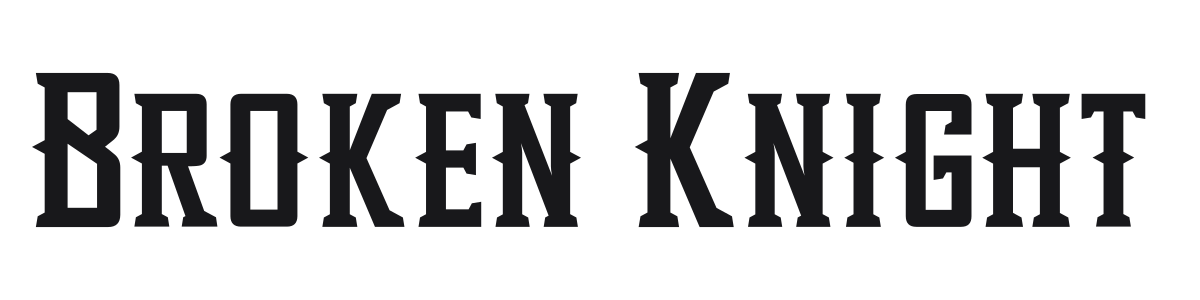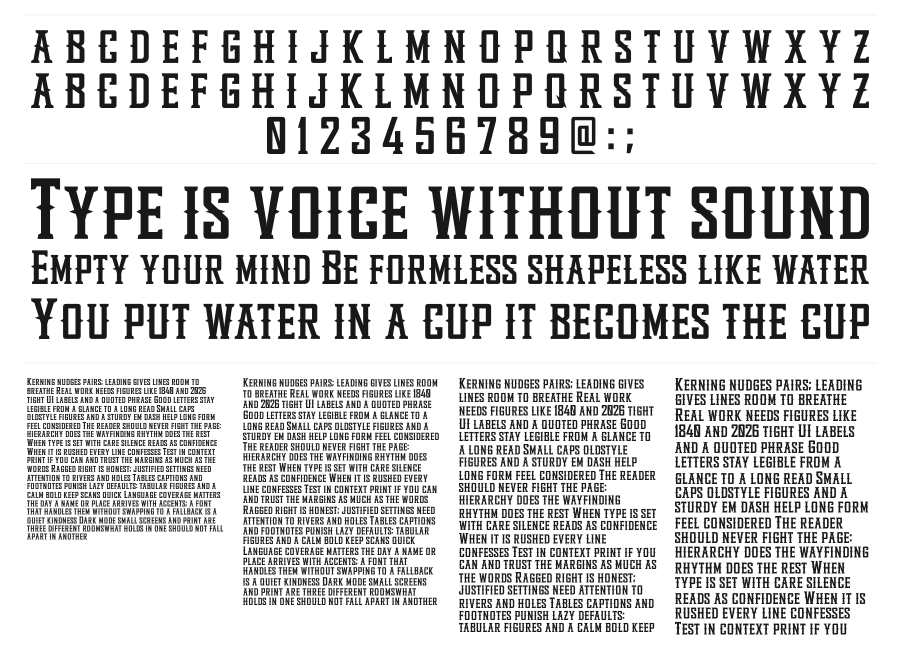
Broken Knight
by EkoZero7
Broken Knight is a bold condensed slab serif with a rugged, old-West personality drawn from Victorian display type traditions. The heavy stems, bracketed serifs, and sharp decorative notches at stroke junctions give it a weathered, frontier-saloon character without resorting to obvious distressing. It commands attention at large sizes and works naturally for posters, sports branding, and heritage packaging.